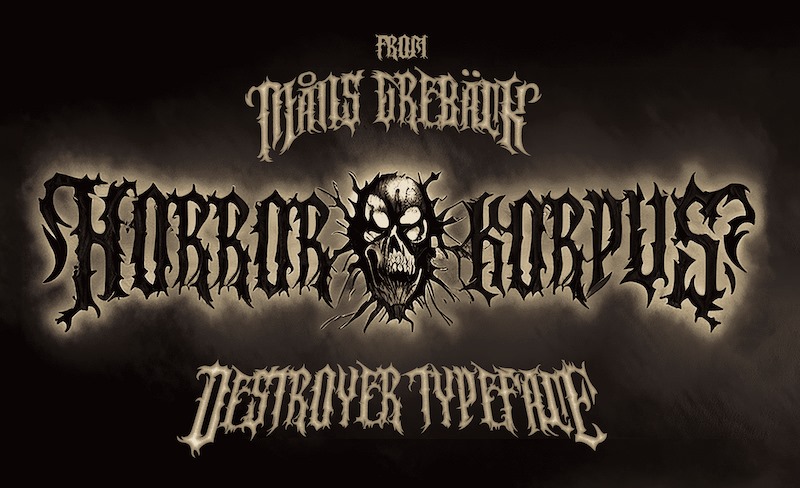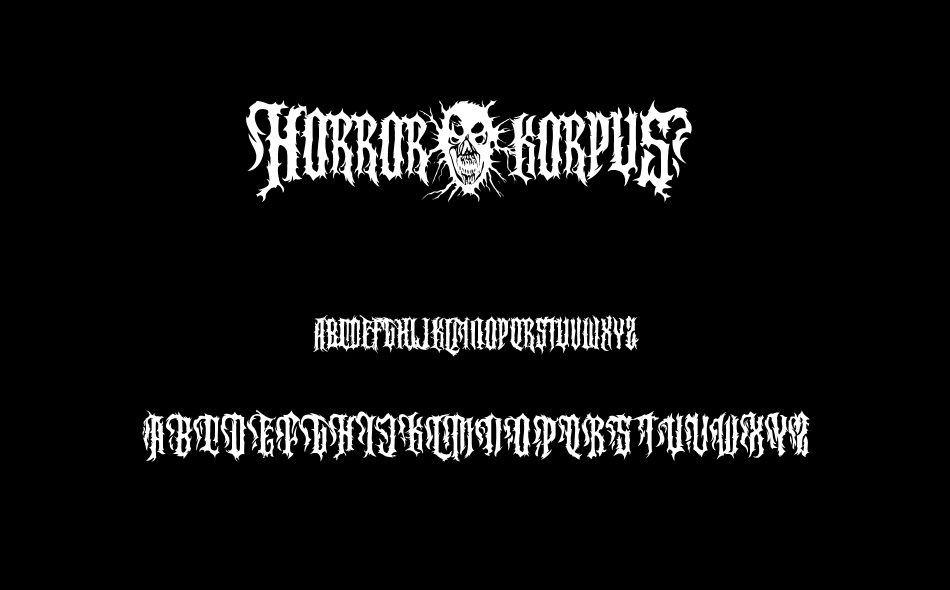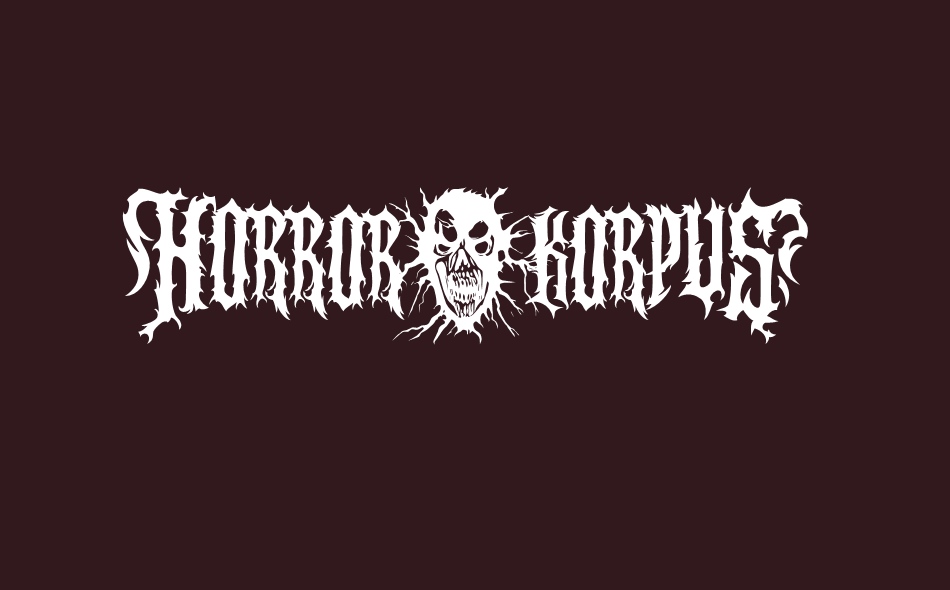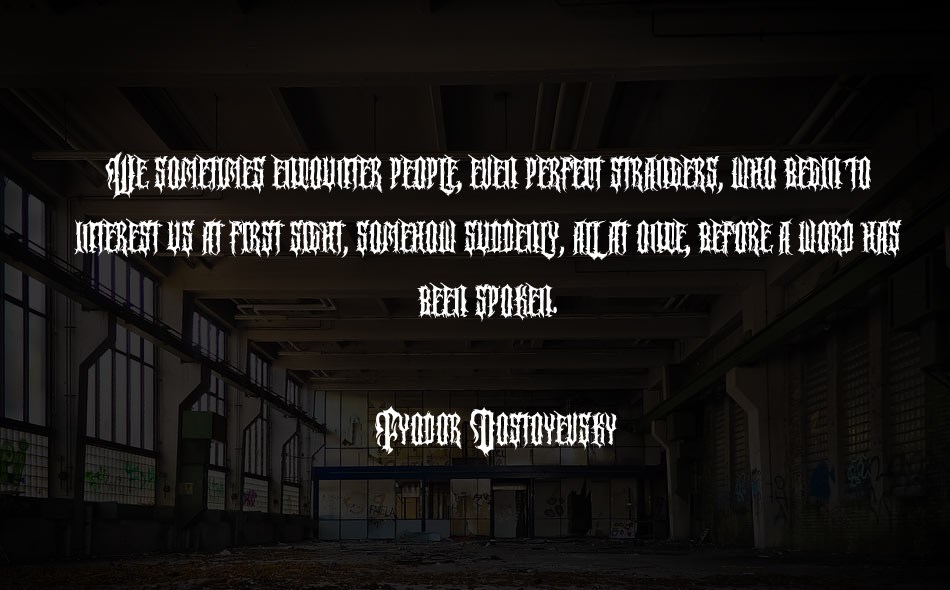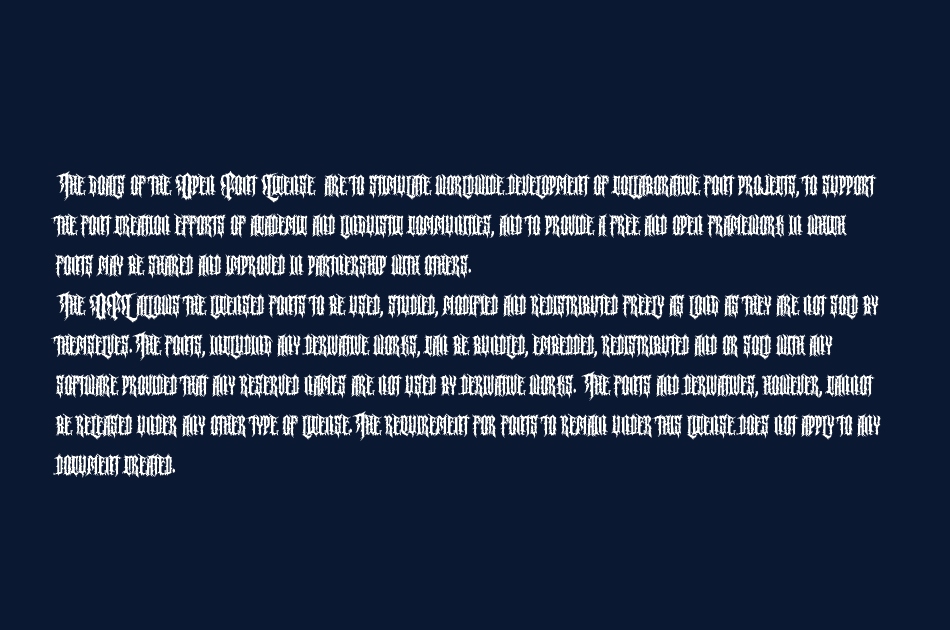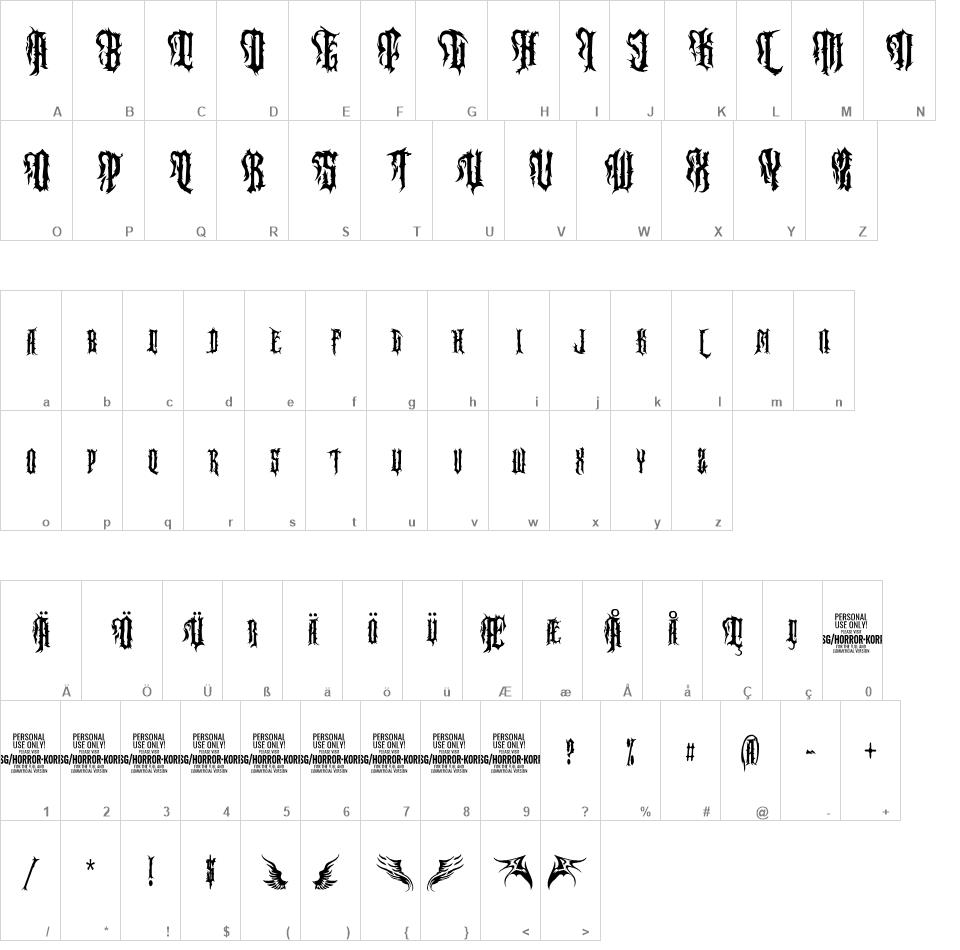
Horror Korpus font
Horror Korpus is an artistic rebellion, a statement against the clean and the pristine.
It is the indisputable choice for a heavy metal logo and horror movie posters, adding a fiery and dark dimension to your designs.
Write % after any word to make it into a symmetric logo.
Example: Monogram%
Use ( ) { } [ ] < > around any word to give it wings.
Example: <dragon>
Use ≠ ~ to make demonic symbols like devils and skulls.
Example: scarymovie
Horror Korpus is an artistic rebellion, a statement against the clean and the pristine, evoking the gritty scenes of a horror movie into your design.
With flames burning in its strokes and a wild, untamed demeanor, this rough font wears a garment of distress, with eroded and destroyed textures that screams an extreme temperament. It stands defiant, bearing a resemblance to edgy tattoo designs that adorn the bravest of souls.
Its characteristics make it an indisputable choice for heavy metal logos and intense film posters, adding a fiery and dark dimension to your designs.
Write % after any word to make it into a symmetric logo.
Example: Monogram%
Use ( ) { } [ ] < > around any word to give it wings.
Example:
Use ¶ ¦ ‡ ¤ × ÷ ? ± ~ to make demonic symbols like devils and skulls.
Example: scary×movie
Designed by Mans Greback, a versatile typeface craftsman, Horror Korpus is another feather in his cap, showcasing his ability to play with extremes and yet maintain a level of artistic coherence and appeal. Greback continues to push boundaries, offering fonts that are not only visually compelling but also narrate a story through their intricate design and personality.